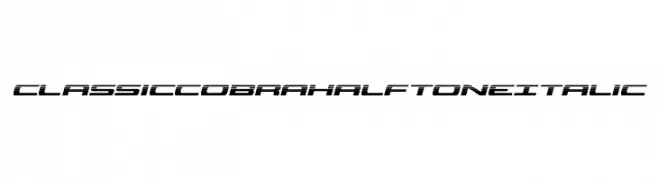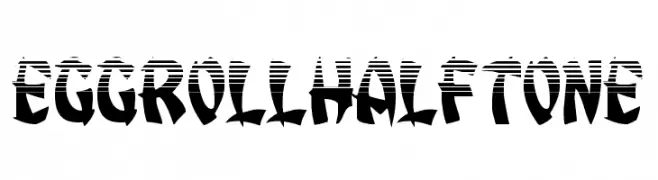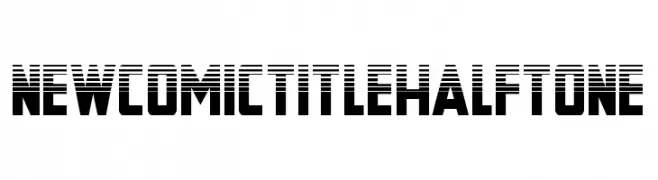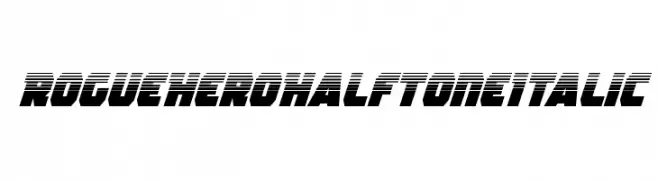
• Classic Cobra Halftone
A bold, futuristic font with a halftone effect and geometric structure.
• Classic Cobra Halftone Italic
A dynamic, italicized font with a futuristic halftone effect and sleek, angular letters.
• Egg Roll Halftone
A bold, dynamic font with a halftone effect and striped pattern.
• New Comic Title Halftone
A bold, geometric font with a halftone effect, ideal for dynamic headlines.
• Rogue Hero Halftone Italic
A bold, italicized font with a halftone effect, perfect for modern and dynamic designs.
• Rogue Hero Halftone
A bold, geometric font with a halftone effect, ideal for modern designs.
• Wildcard Halftone Italic
A bold, italicized font with a futuristic halftone effect and geometric structure.
• Wildcard Halftone
A bold, futuristic font with a halftone effect and geometric shapes.
• Soloist Halftone
A bold, dynamic font with a halftone effect and horizontal line pattern.
• Grendel's Mother Halftone
A bold, halftone-effect font with a modern and dynamic style.